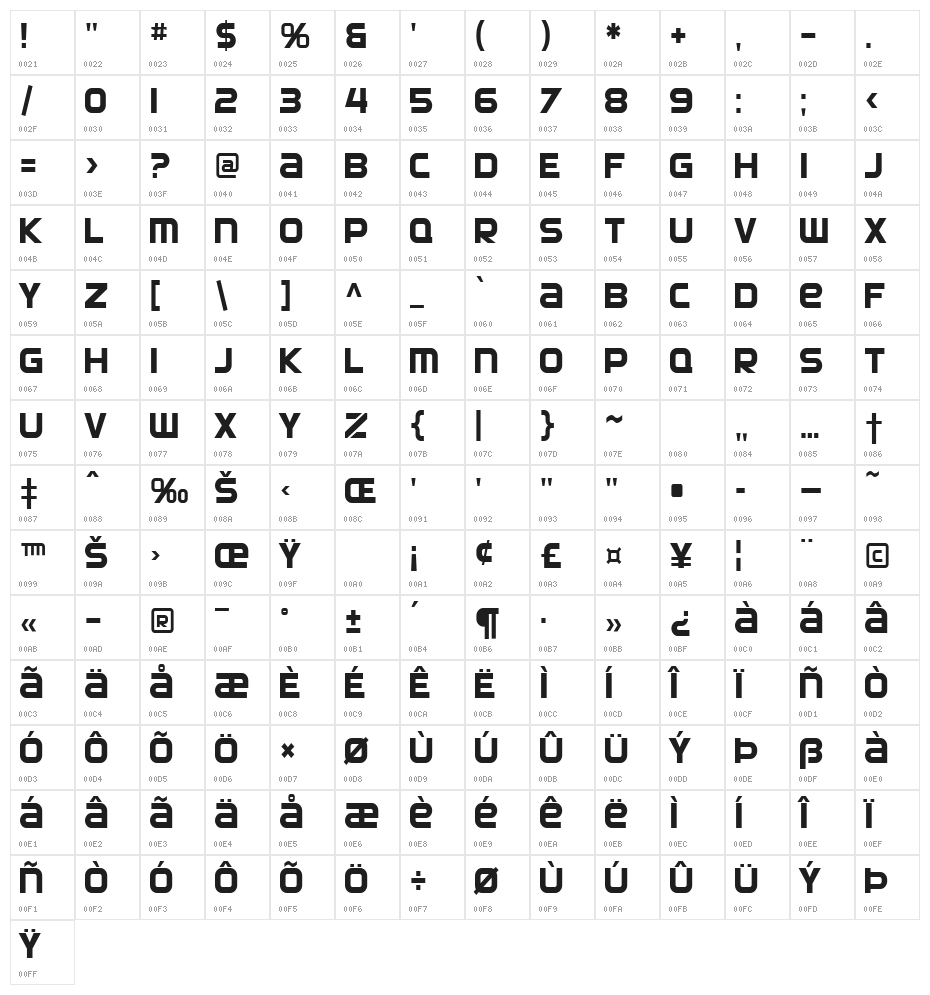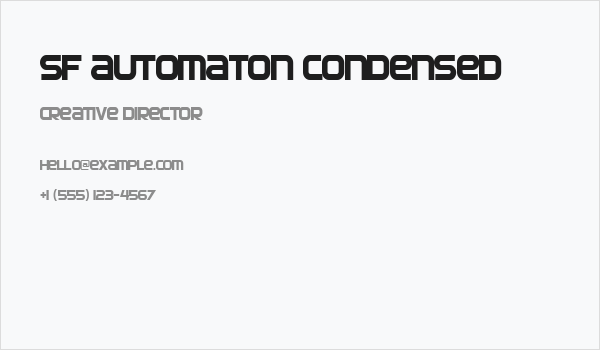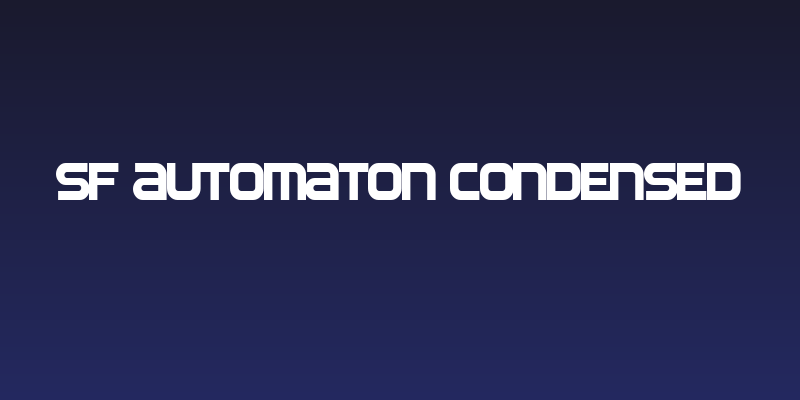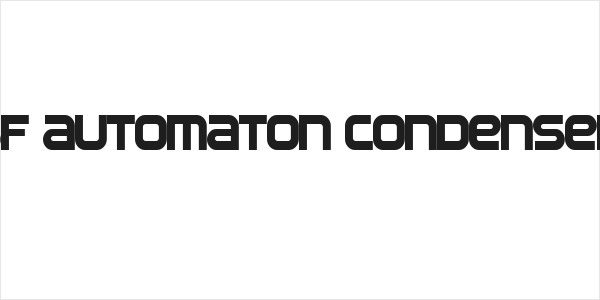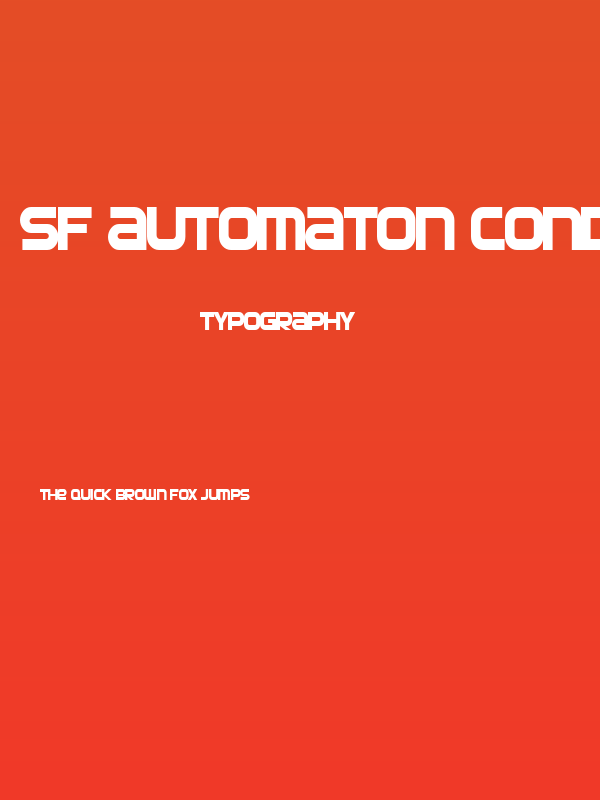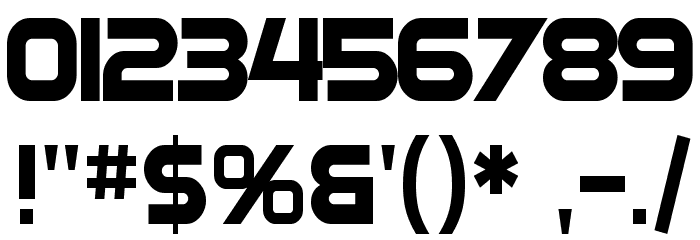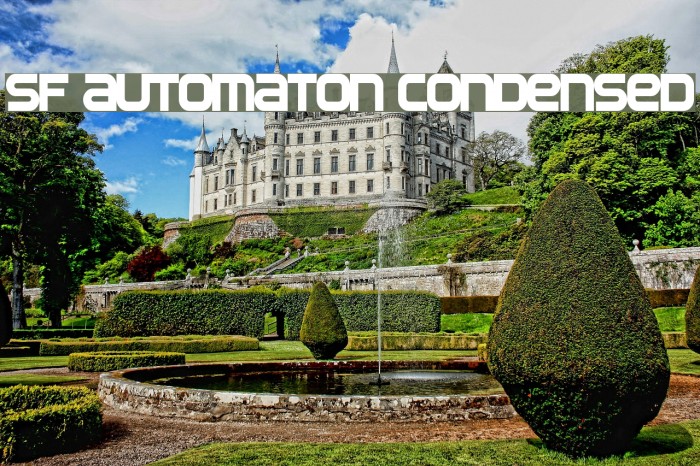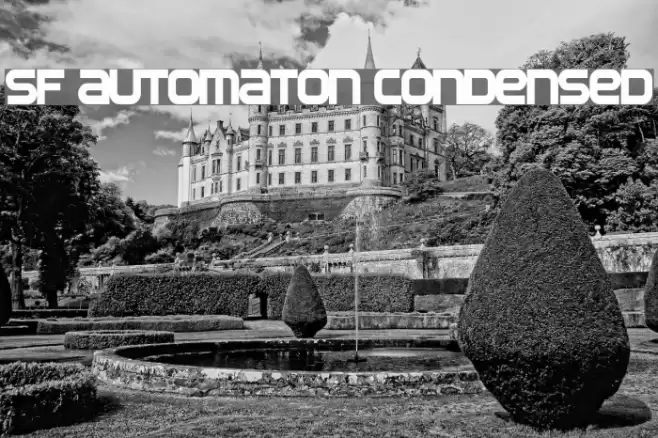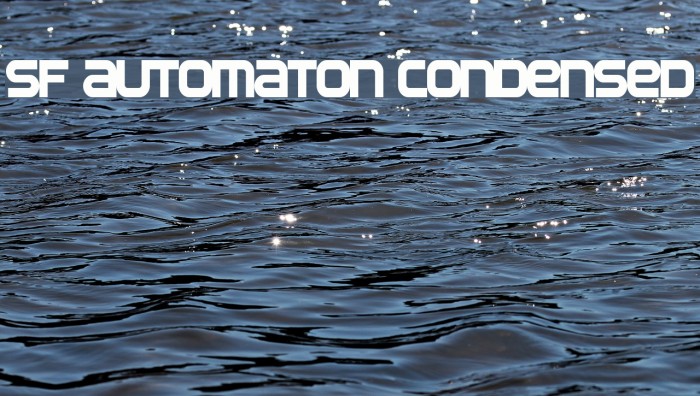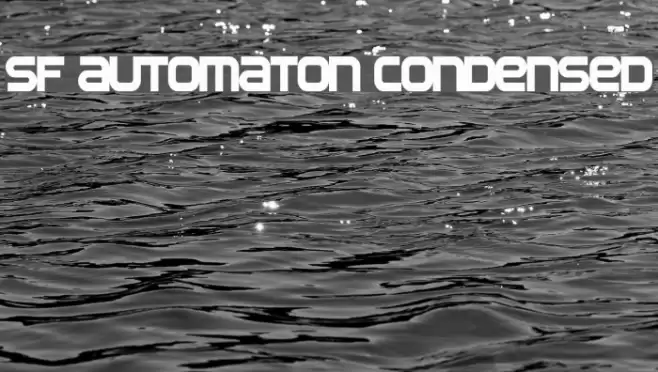
SF Automaton Condensed Font
This font features a futuristic and geometric design, characterized by its bold and condensed letterforms. The characters are constructed with a strong emphasis on horizontal and vertical lines, creating a mechanical and industrial aesthetic. The uppercase and lowercase letters maintain a uniform height, contributing to a cohesive and streamlined appearance. The numerals and special characters follow the same design principles, ensuring consistency across all glyphs. The font's distinct style makes it suitable for projects that require a modern and technological feel.
| Proposed Projects | Ideal for technology branding, sci-fi posters, video game interfaces, and modern advertising. |